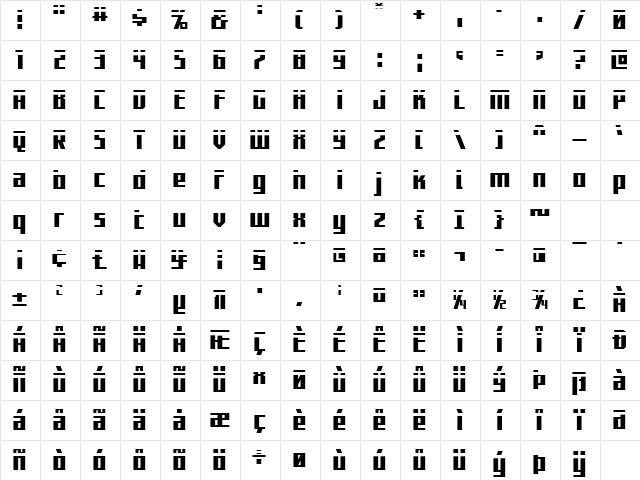
Capitol City Laser Straight Regular
Design Context for Capitol City Laser Straight
Capitol City Laser Straight is a composed and adaptable typeface that performs quietly and consistently across a wide range of design contexts.